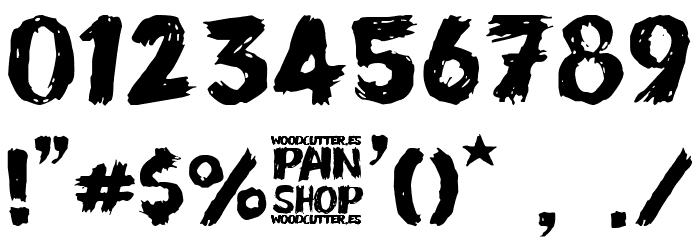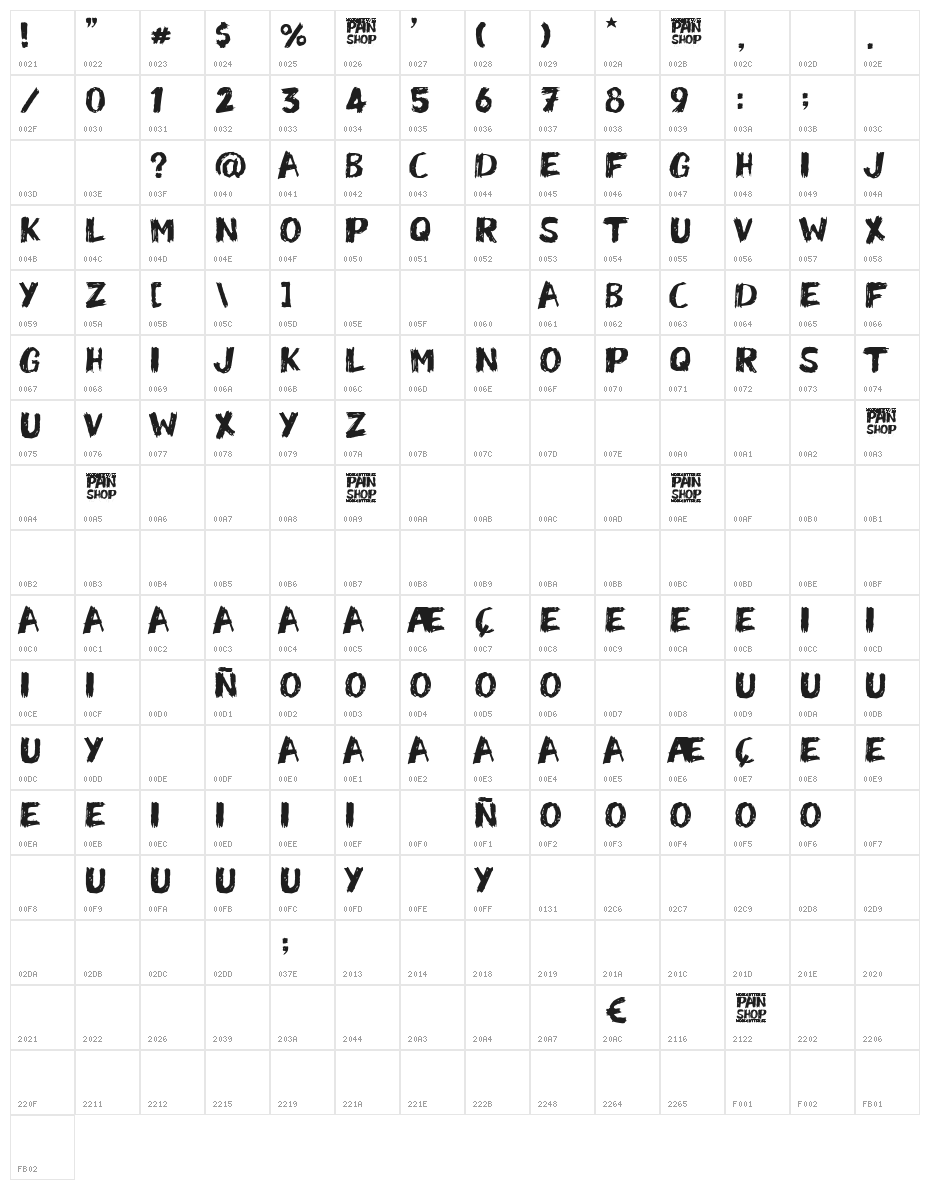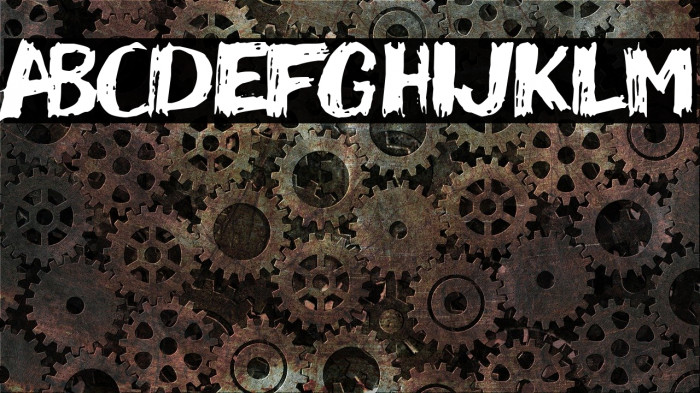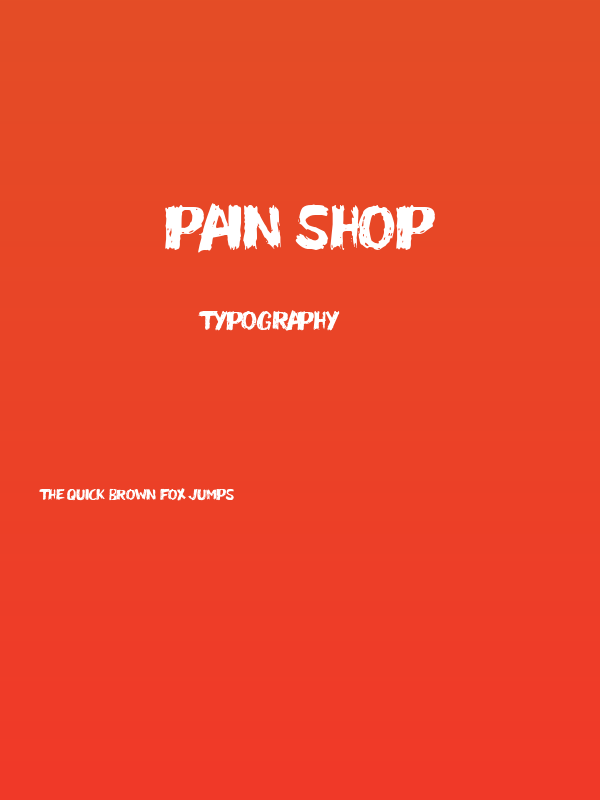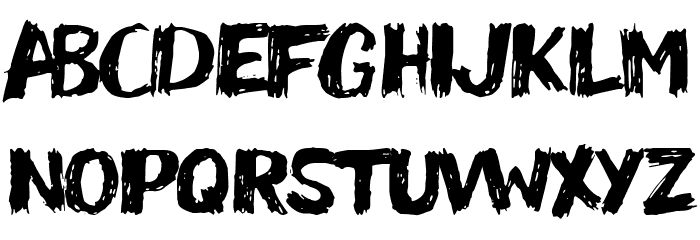
Pain Shop Font
Pain Shop Description
This font features a bold, distressed style with a hand-drawn appearance, characterized by rough edges and an uneven texture. The letters are thick and impactful, giving off an energetic and rebellious vibe. The uppercase and lowercase letters maintain a consistent ruggedness, while the numbers and special characters follow the same aesthetic, ensuring a cohesive look. The font's unique style makes it stand out, ideal for projects that require a strong visual impact.
| Proposed Projects | Ideal for music album covers, event posters, graffiti art, and edgy branding projects. |